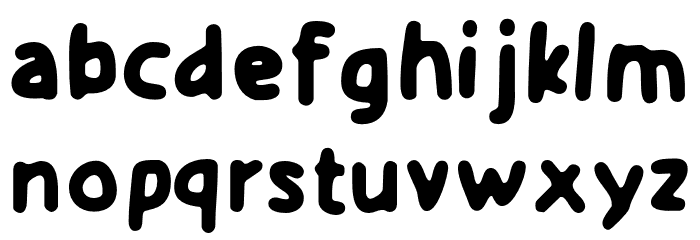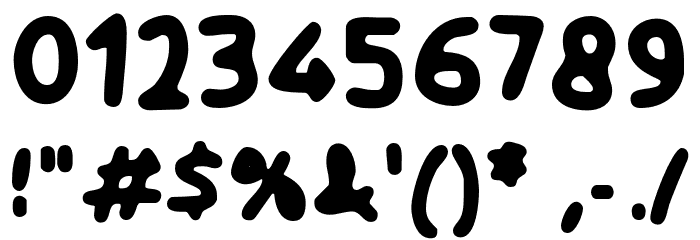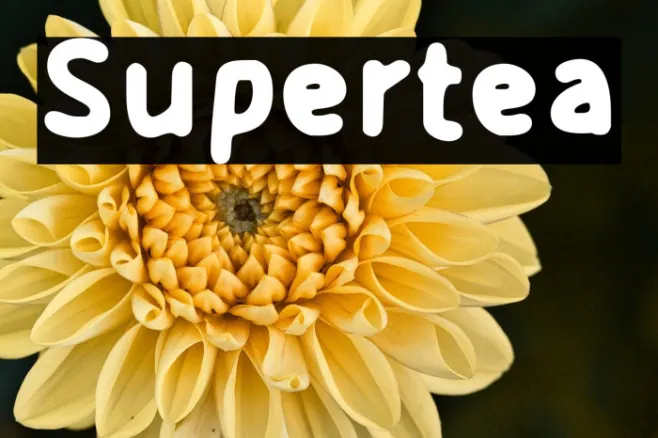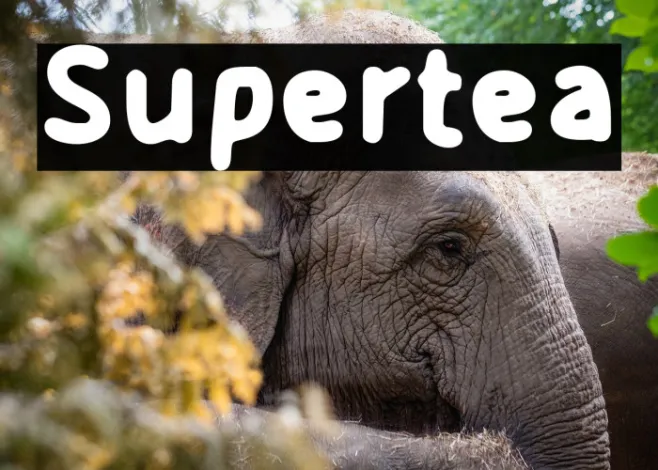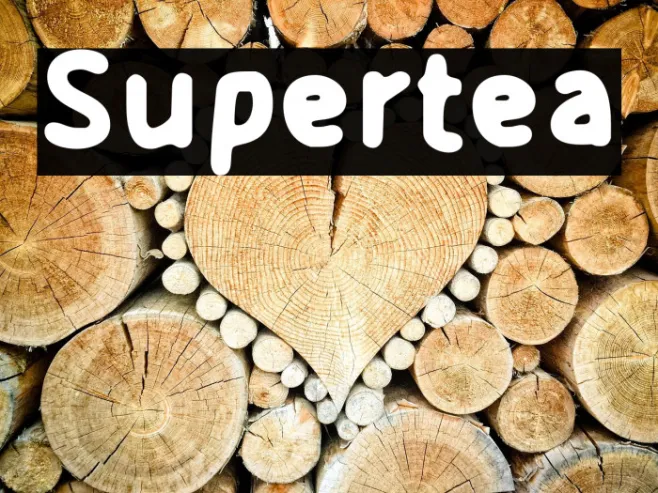
Supertea Font
This playful and bold font features rounded, thick strokes that give it a friendly and approachable appearance. The characters are slightly irregular, adding a whimsical touch that makes it stand out. Its boldness ensures high visibility, making it suitable for eye-catching designs. The font maintains a consistent weight throughout, with smooth curves and a slightly condensed width. The character spacing is normal, allowing for easy readability. The overall style is modern and fun, perfect for projects that require a lively and engaging typeface.
A playful, bold font with rounded, thick strokes and a whimsical touch.
- Font: Supertea
- Proposed Projects: Ideal for children's books, playful branding, casual posters, and fun social media graphics.
- Overall Style: Modern, Fun